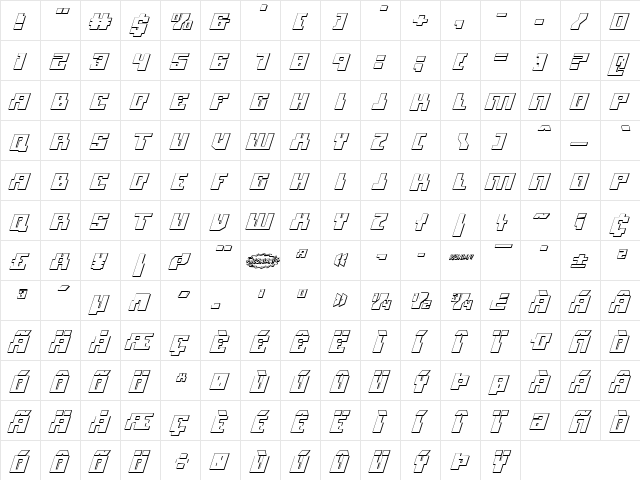
Micronian 3D Italic Italic
Design Context for Micronian 3D Italic Typeface
Micronian 3D Italic is a composed and adaptable typeface that performs quietly and consistently across a wide range of design contexts. The dynamic lean of this cut emphasises speed and emphasis in any layout.
Pro Tip: Try Micronian 3D Italic for annotation and caption copy alongside an upright companion — the contrast in angle creates a dynamic but ordered typographic system.